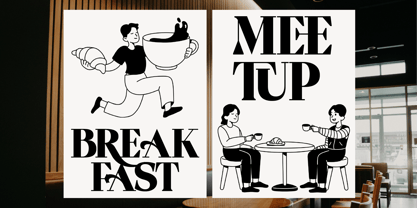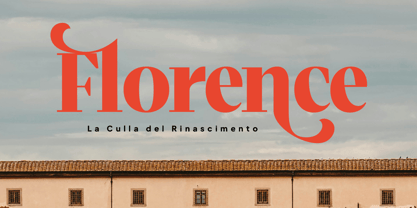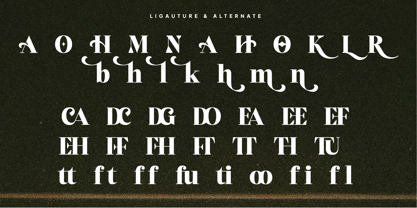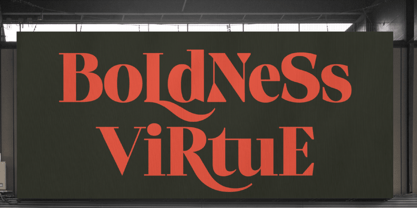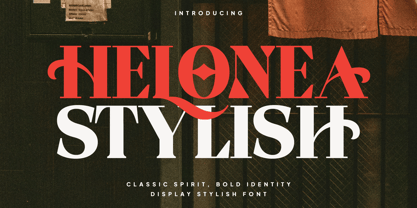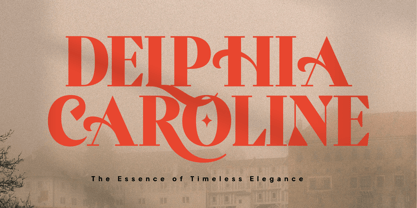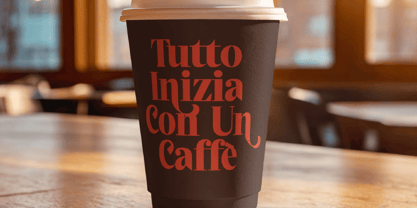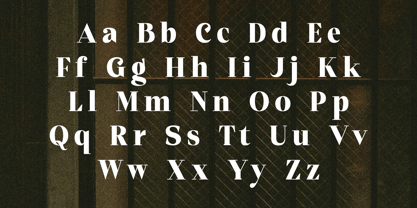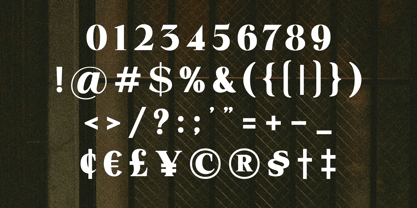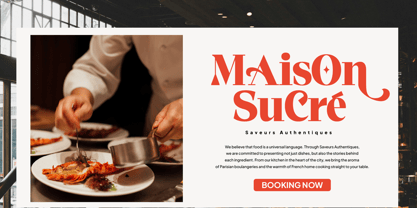
Helonea
Imagine walking through a sun-drenched gallery in Milan or catching the glint of a vintage gold watch under a streetlamp; there is a specific kind of beauty that doesn’t need to shout to be noticed—it simply commands the room. This is the soul of Helonea, a visual narrative born from the desire to marry the grandeur of classical Roman proportions with the avant-garde spirit of modern fashion. Acting as the bridge between the “Classic Spirit” of history and the “Bold Identity” of tomorrow, this font comes fully equipped with a rich suite of features designed to elevate your designs. You can unlock a treasure trove of custom characters through its ligatures and alternates, using everything from interlocking letters to dramatic swashes to customize your typography into a bespoke piece of art. Furthermore, it offers perfectly balanced uppercase and lowercase weights that maintain legibility while maximizing stylistic impact, alongside numerals and punctuation marks crafted with the same serif precision to ensure a completely cohesive look. Complete with extensive multilingual support, Helonea empowers you to speak to a global audience with timeless elegance.